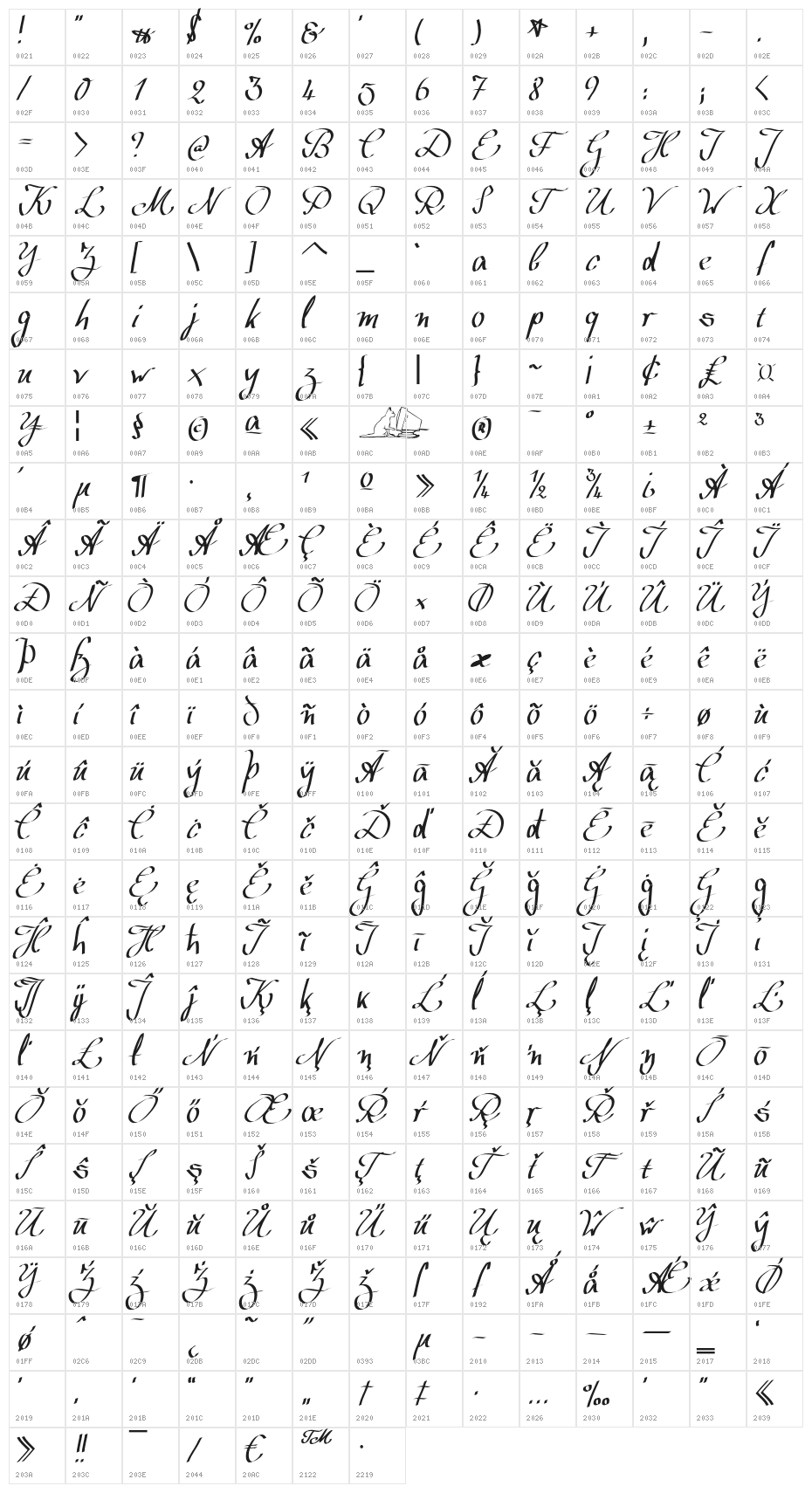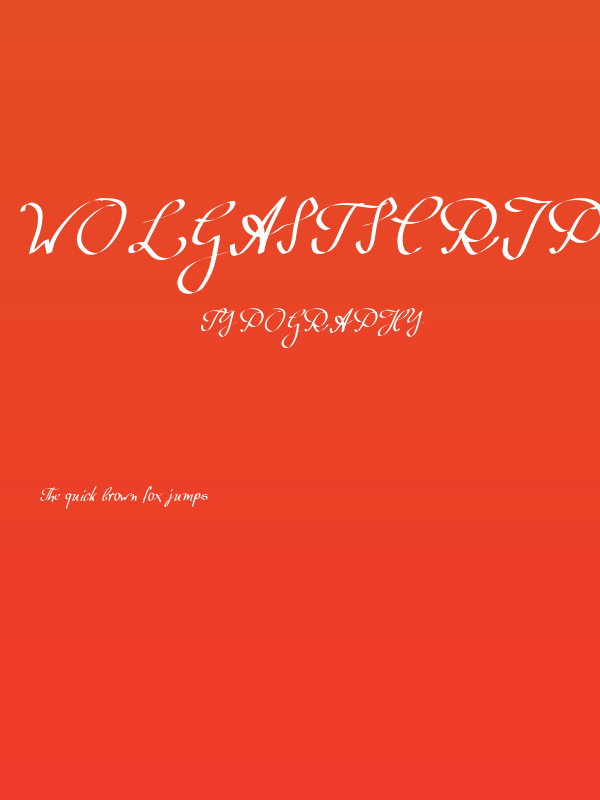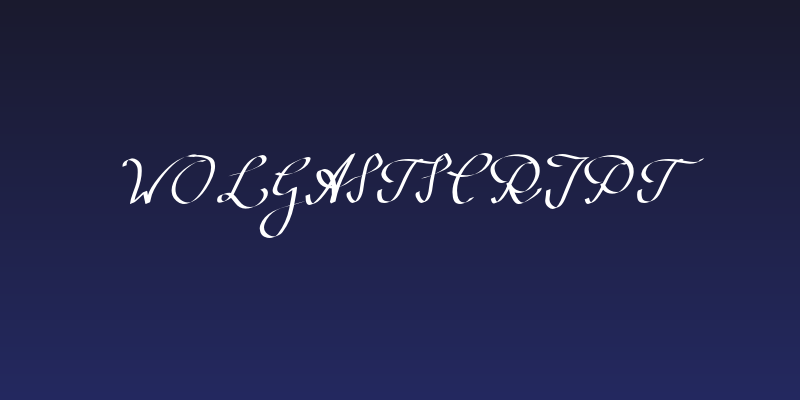
WolgastScript Font
| Caso d'uso | Logos, Invitations, Greeting Cards |
| Progetti proposti | Ideal for wedding invitations, greeting cards, logos, and branding materials that require a personal and artistic touch. |